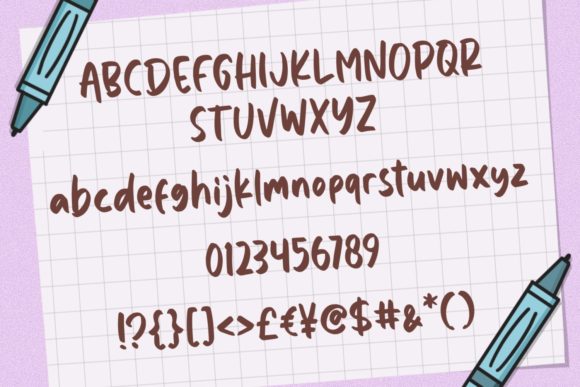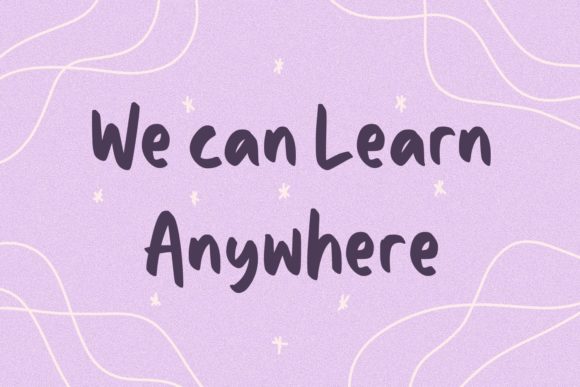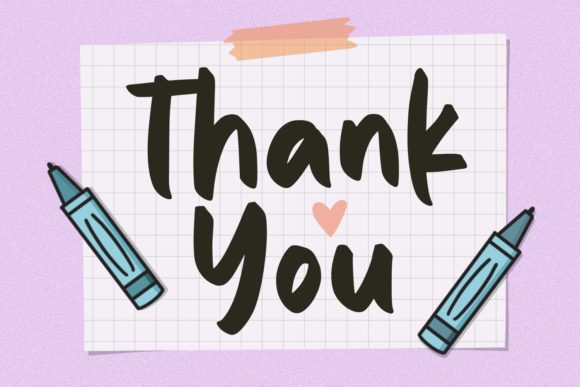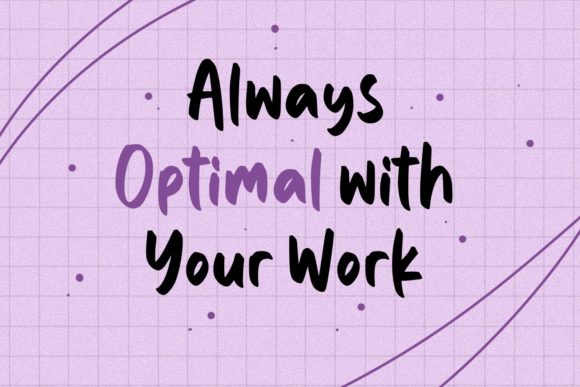
Marker and Paper Font
About Marker and Paper Font
Marker and Paper is a fun and friendly handwritten font. It has a modern yet whimsical style and it will undoubtedly immerse your designs into a magical world.